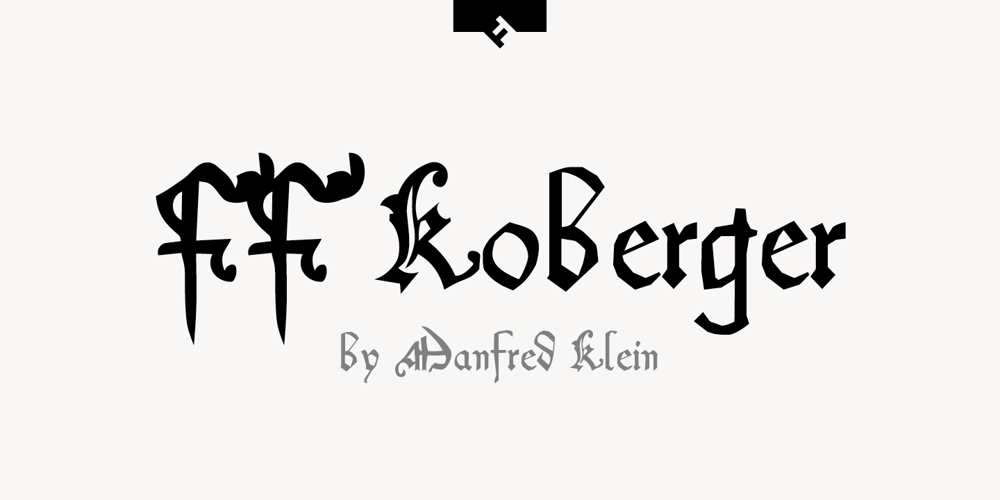
FF Koberger
FF Koberger font
FF Koberger Font Family was designed by Manfred Klein and published by FontFont. FF Koberger contains 1 styles and family package options. German type designer Manfred Klein created this blackletter FontFont in 1991. The font is ideally suited for film and tv, poster and billboards as well as software and gaming. FF Koberger provides advanced typographical support with features such as ligatures, alternate characters, case-sensitive forms, and stylistic alternates. It comes with proportional lining figures.